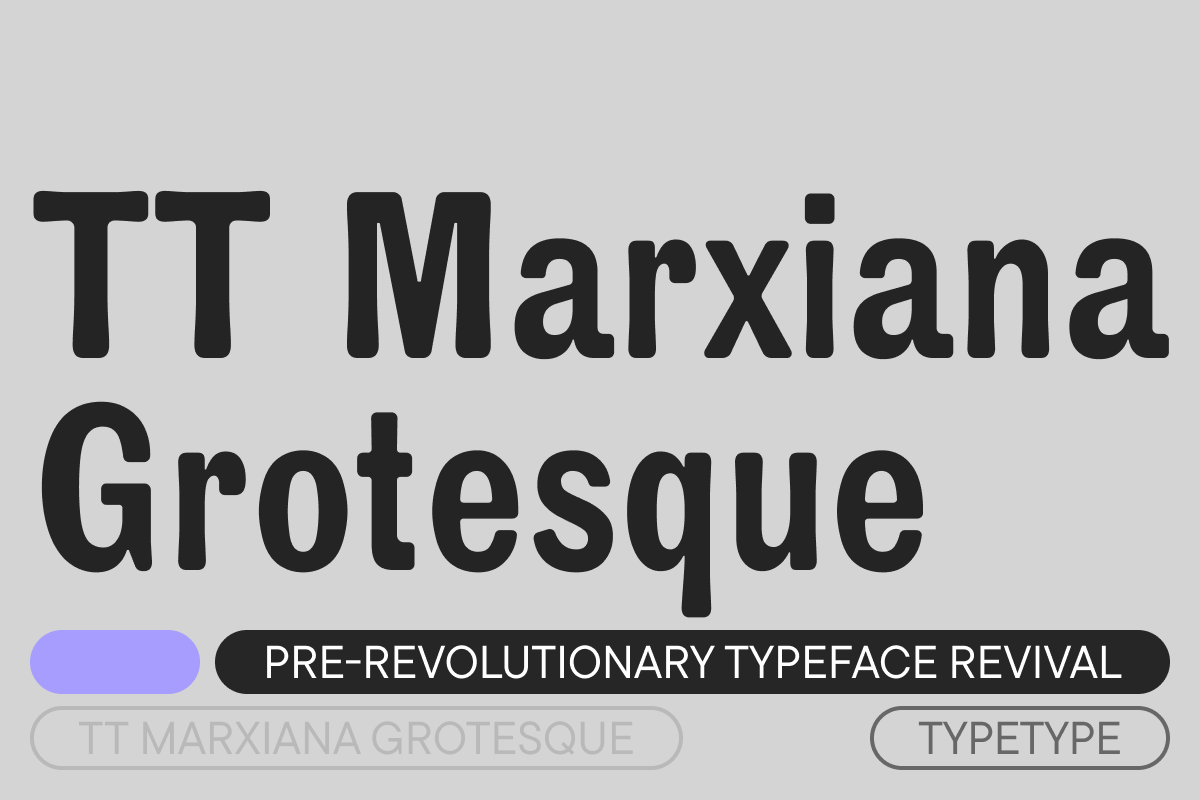
TT Marxiana Grotesque
TT Marxiana is a project to reconstruct pre-revolutionary fonts used in the 1887 layout of Niva magazine, published by A.F. Marx in St. Petersburg. The focus is on reviving a specific font set from that edition. TT Marxiana Grotesque is a rather thick and bold old grotesk. Its drawing also maximally preserved the defects obtained during printing and characteristic of its paper reference.